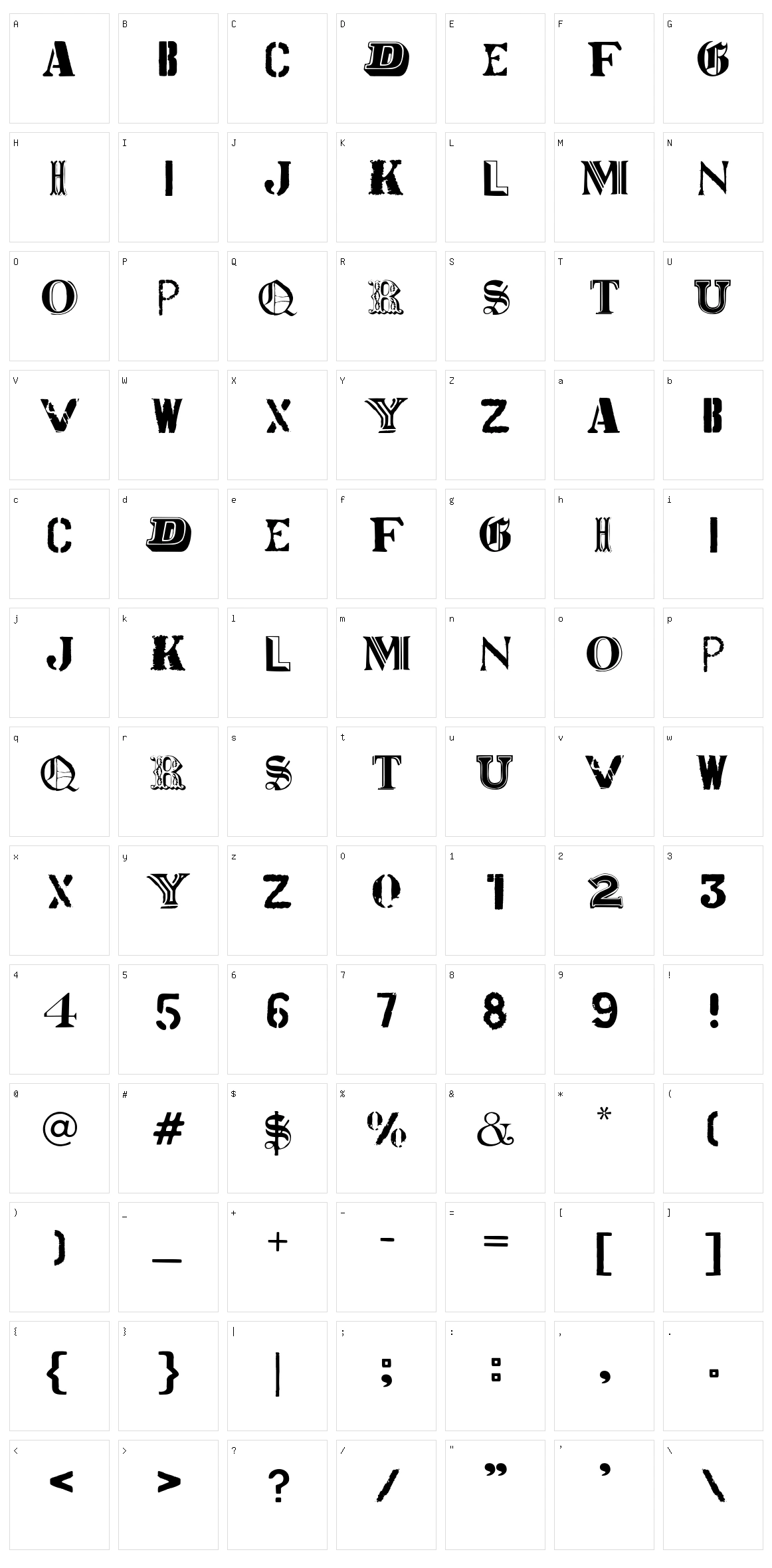
World Tour Font
The World Tour font is a "ransom note" font designed in FontLab Studio. This font
comes with alphanumeric characters, punctuation and Euro sign but not international
characters. This font is in the public domain.